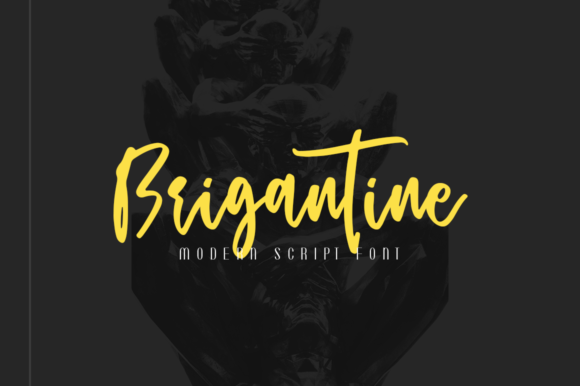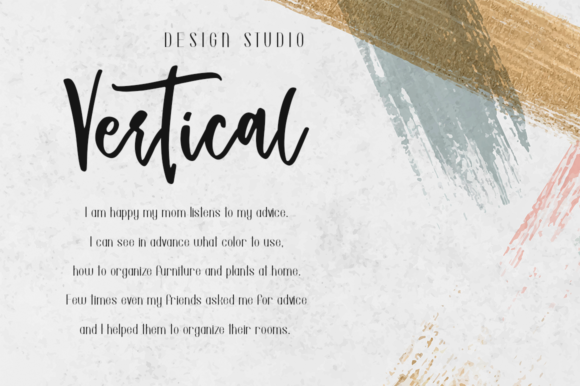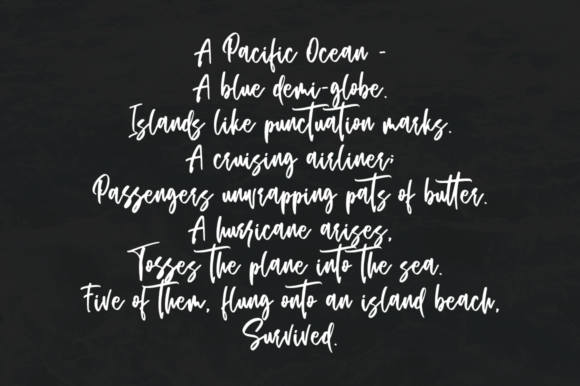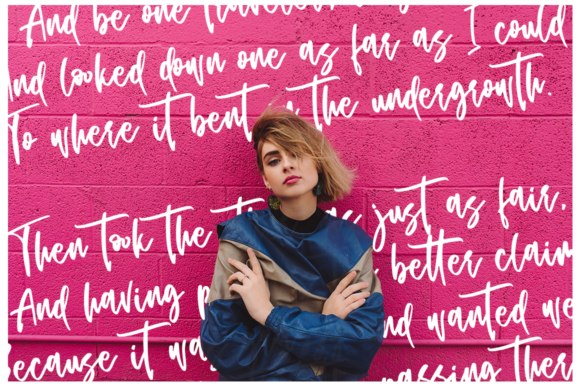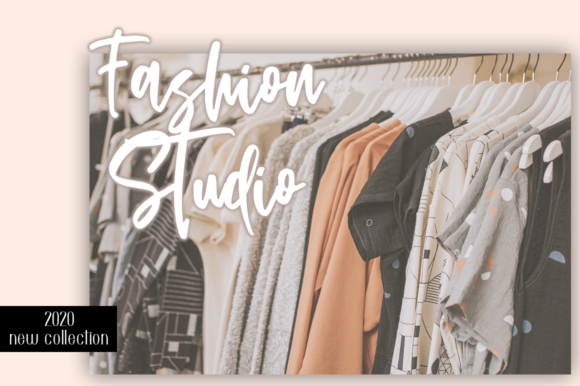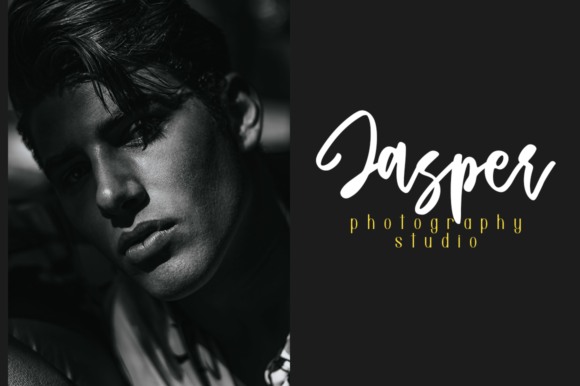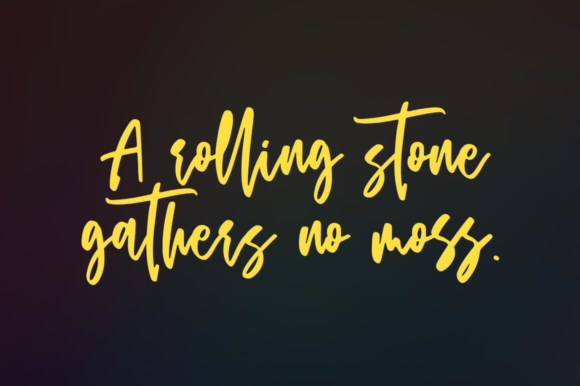
HomeScript FontsBrigantine Font Script Fonts Brigantine Font FacebookXPinterestWhatsApp Brigantine Font Poster 2 Brigantine Font Poster 3 Brigantine Font Poster 4 Brigantine Font Poster 5 Brigantine Font Poster 6 Brigantine Font Poster 7 About Brigantine Font Brigantine is a modern and charming script that radiates authenticity. Get inspired by its contemporary charm! DOWNLOAD ON CREATIVE FABRICAThis font is sold and delivered by Creative Fabrica. Font Canyon may earn a commission if you buy through this link. People also explored Bladekade Font Aciella Script Font Money Shot Dafania Font Destrod Font Megan Qinthia Font Small House Font D’Borobudur Font Great Britain Font 397 0 TagsBrigantine Font Previous articleRoyal Haster FontNext articleChildish Font LEAVE A REPLY Cancel reply Comment: Please enter your comment! Name:* Please enter your name here Email:* You have entered an incorrect email address! Please enter your email address here Website: Save my name, email, and website in this browser for the next time I comment. Personal Use Free Bahjera Personal Use Free Read more about this font Gila Personal Use Free Read more about this font Tide Personal Use Free Read more about this font Americana Personal Use Free Read more about this font BLOG How to Install and Use Fonts on Windows, macOS, and Web Projects How to Install and Use Fonts on Windows, macOS, and Web Projects Fonts are a crucial part of design and branding. Whether you’re designing a... Fonts That Capture the Spirit of New York City Best Fonts for T-Shirt Design – Top 2025 Picks Best Fonts for YouTube Videos: Make Your Thumbnails Stand Out